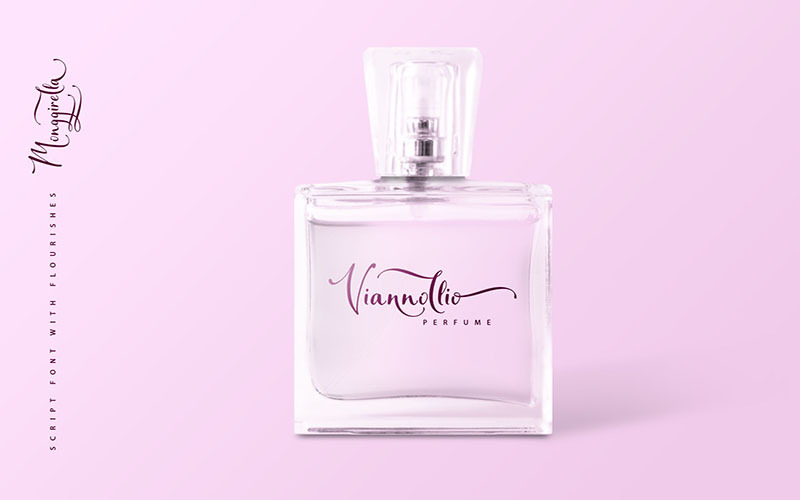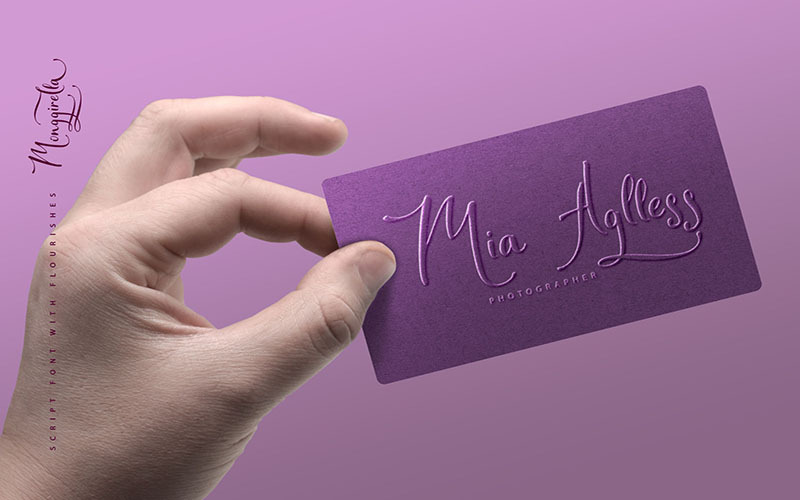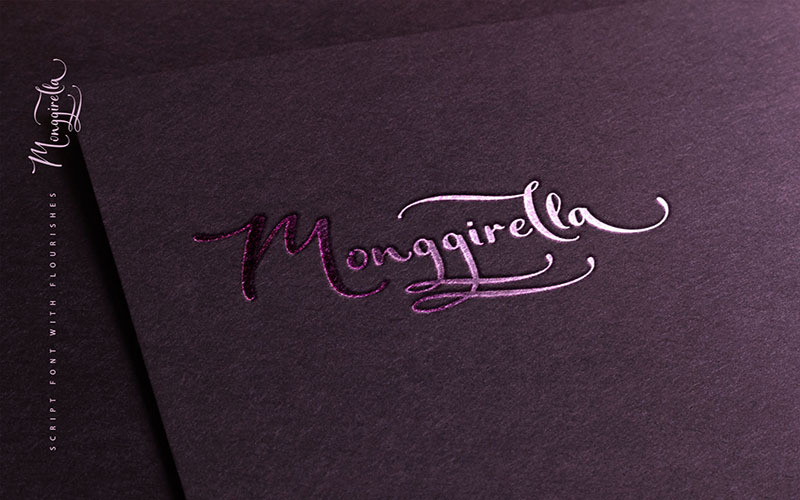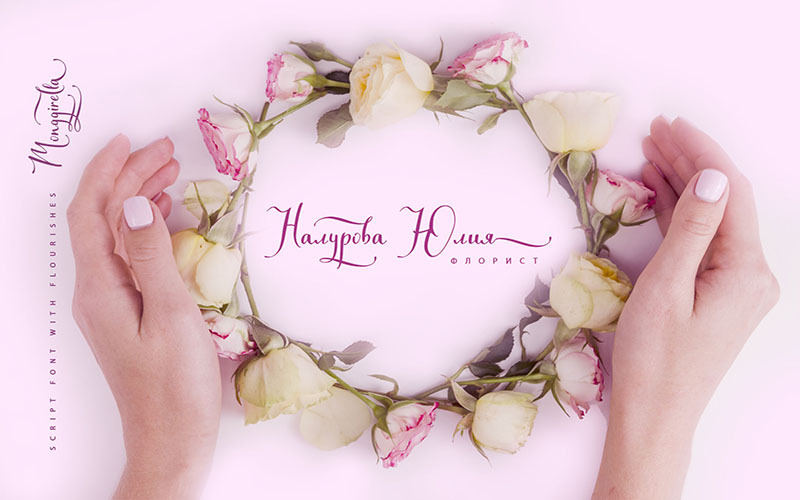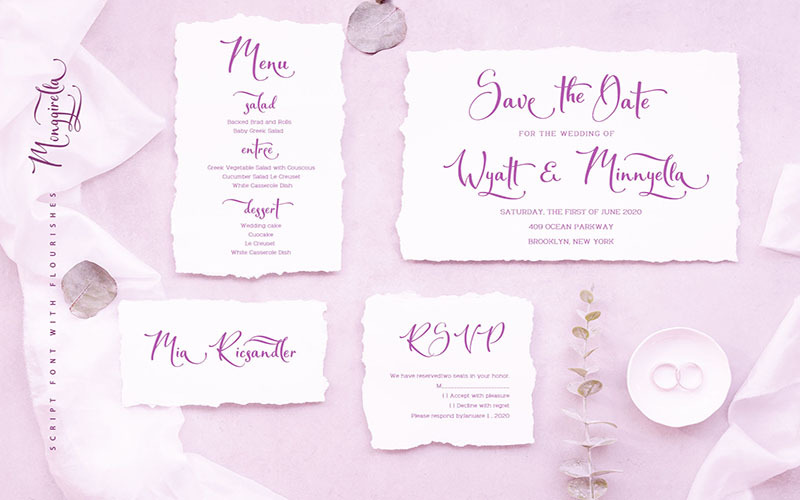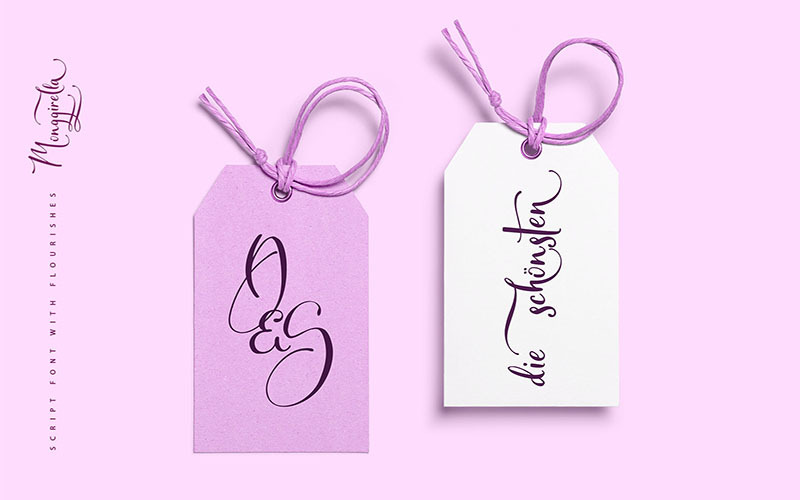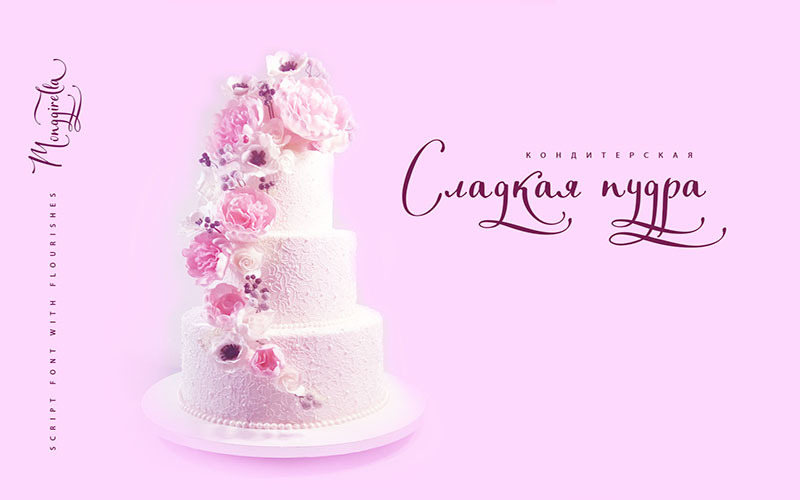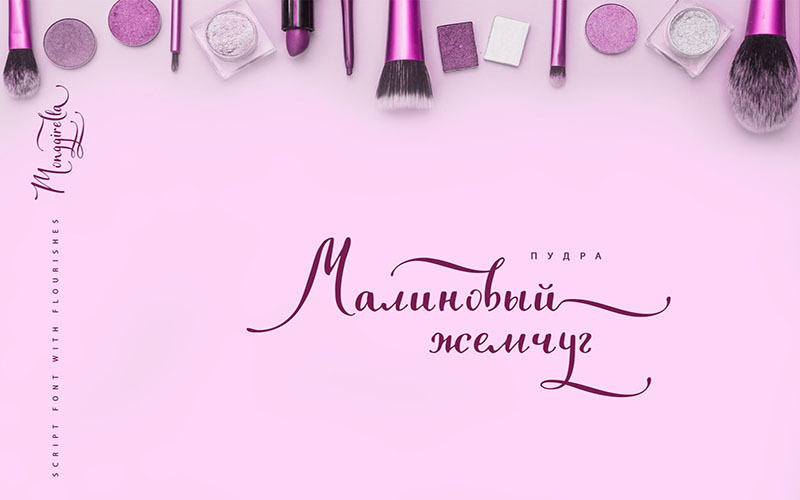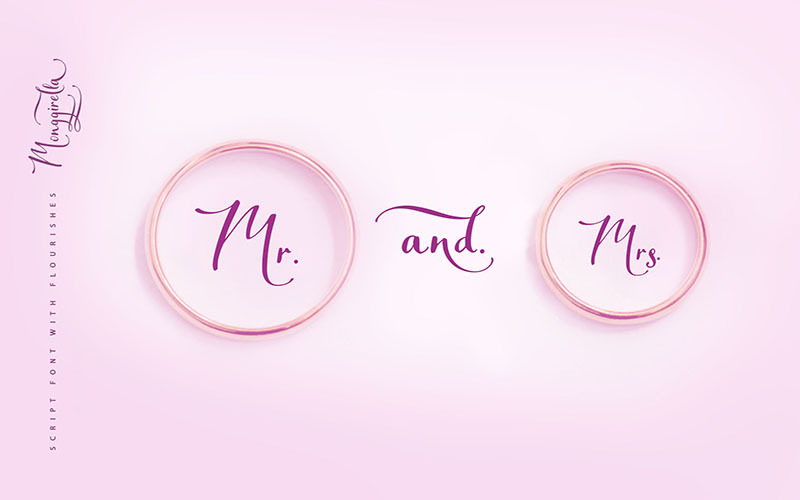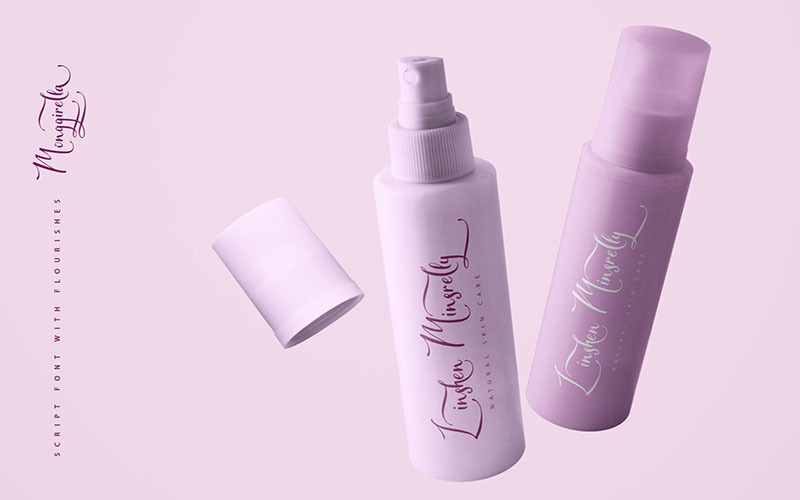
Monggirella Cursive Font + Cyrillic
Monggirella script font is a pretty calligraphic script font with flourishes, that will look gorgeous on all your designs, wedding invitations, love stories, branding materials, logos, business and wedding cards, calligraphy Insta quotes elegant fashion sketches, calligraphy love monograms and much more.
Monggirella script font contains the Cyrillic glyphs too.
Monggirella script font contains a full set of uppercase and lowercase letters and can be used to create a handwritten calligraphy look.
Some letters include the flourishes and you can receive it with typing numbers after letters. Please use the glyphs map to choose the letters with flourishes
Multilingual Support for 31 languages: Latin glyphs for Afrikaans, Albanian, Basque, Bosnian, Catalan, Danish, Dutch, English, Estonian, Faroese, Filipino, Finnish, French, Galician, Indonesian, Irish, Italian, Malay, Norwegian Bokmål, Portuguese, Slovenian, Spanish, Swahili, Swedish, Turkish, Welsh, Zulu. And Cyrillic glyphs support for Russian, Belorussian, Bulgarian, and Ukrainian languages. (Does font support more Cyrillic languages just type a message in the text box below and see if all characters you’ll need are there.)